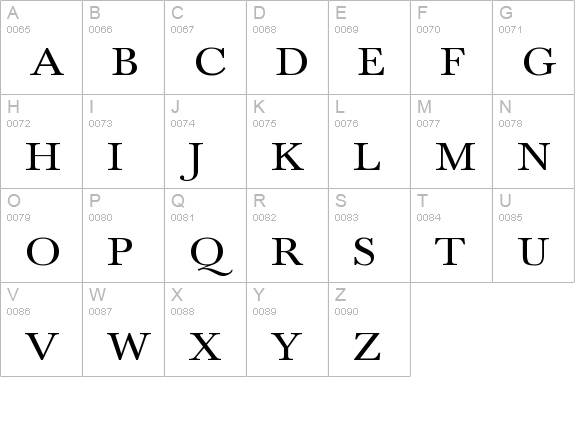
NewBaskervill 6 font is a timeless and elegant typeface that exudes sophistication and classic charm. Its graceful serifs and balanced letterforms make it the perfect choice for projects that require a touch of refinement. Whether you're working on a wedding invitation, a formal document, or a high-end branding project, NewBaskervill 6 font will elevate your design to new heights. What's more, NewBaskervill 6 font is available for free download at FontsMarket.com. This means you can access this premium font without any cost, making it an excellent choice for designers on a budget or anyone looking to add a touch of luxury to their work. Don't miss out on the opportunity to enhance your projects with the beauty and sophistication of NewBaskervill 6 font - download it for free today at FontsMarket.com.